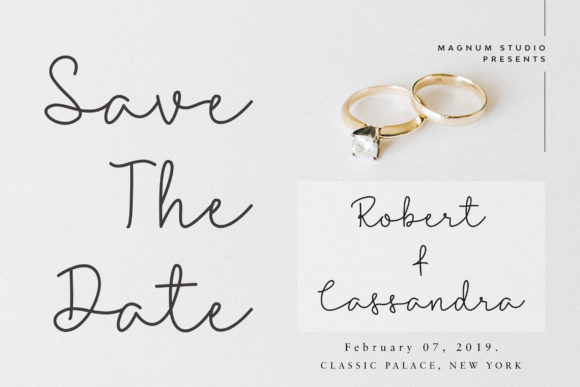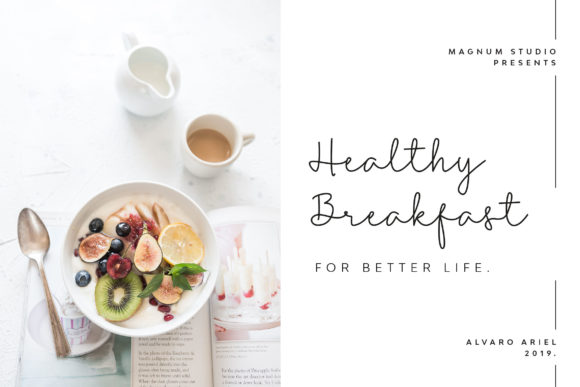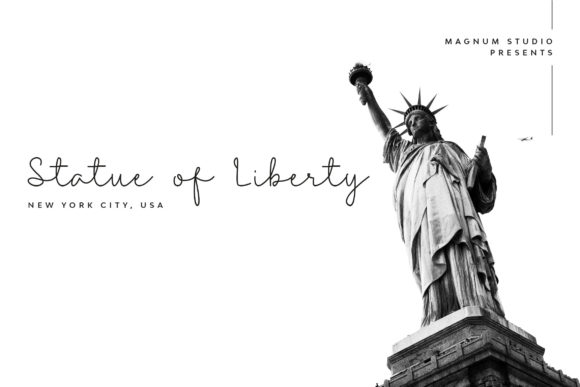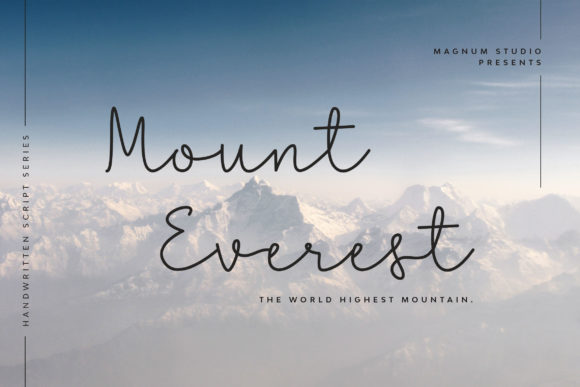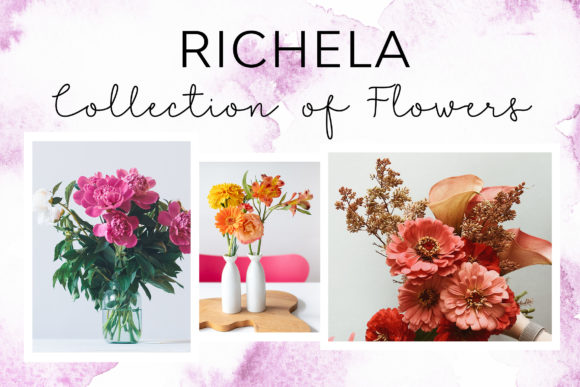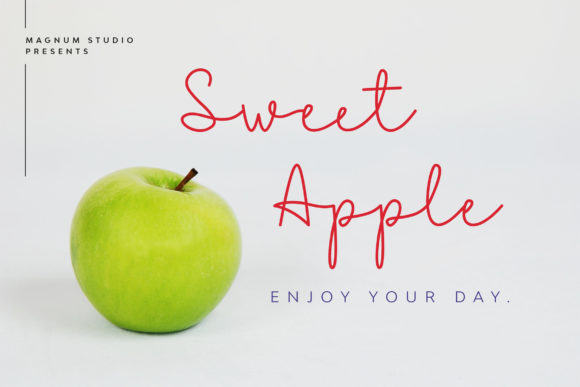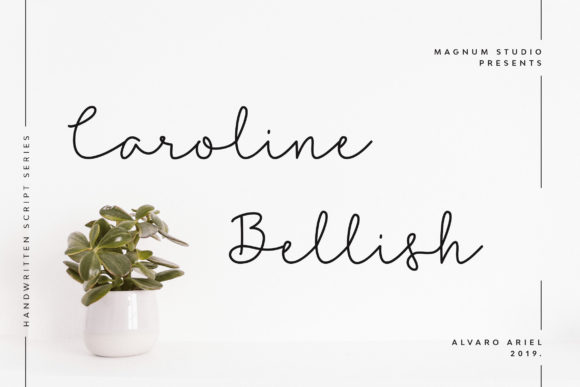
The Elusive Perfect Font: My Encounter with Caroline Bellish
Ah, the quest for the perfect font. We’ve all been there – stuck in the midst of a design project, scrolling through font libraries, and yet, nothing seems quite right. I recall a particularly frustrating moment when a client requested a “fresh and modern script font” for their branding project. The catch? It had to be unique, something that would make their brand stand out. After hours of searching, I stumbled upon Caroline Bellish Font, and it was love at first sight! 💕
Caroline Bellish Font: A Fresh & Modern Script Font
Caroline Bellish is a beautifully crafted script font, known for its one-of-a-kind style that adds a personalized touch to any design project. Its fresh and modern aesthetic makes it perfect for designers, crafters, and creative hobbyists looking to elevate their work.
An Honest Review of Caroline Bellish Font
- ✨ Unique and modern script style that stands out from more traditional fonts
- 💫 Extensive OpenType features, including glyphs and stylistic alternates, allowing for a high degree of customization
- 🎨 Versatile and adaptable, suitable for a wide range of design projects, from branding to invitations
While Caroline Bellish Font is exceptional, there are a few minor considerations to keep in mind:
- 🤔 The font might not be the best fit for very long blocks of text due to its script nature; it’s more suited for headings, titles, or short paragraphs.
- ⚠️ Some of the more intricate OpenType features might require a bit of experimentation to master.
The Story Behind Caroline Bellish Font
While the exact details of Caroline Bellish Font’s creation are not publicly known, it’s clear that the designer aimed to craft a font that would bring a fresh and modern feel to the world of typography. Inspired by the elegance of script fonts and the uniqueness of modern design trends, Caroline Bellish Font was born – a testament to the power of innovative typography in design.
| Is Caroline Bellish Font suitable for body text? | While it’s primarily designed for headings and titles, its legibility makes it possible to use for short paragraphs. However, for very long texts, a more traditional font might be more suitable. |
| Does Caroline Bellish Font include OpenType features? | Yes, it includes a range of OpenType features such as glyphs, stylistic alternates, and more, allowing for a high degree of customization. |
| Is Caroline Bellish Font easy to read? | Yes, despite its script nature, Caroline Bellish Font is designed to be highly legible, even at smaller font sizes. |
| Font Name | Caroline Bellish Font |
| Author | Cherryline Master |